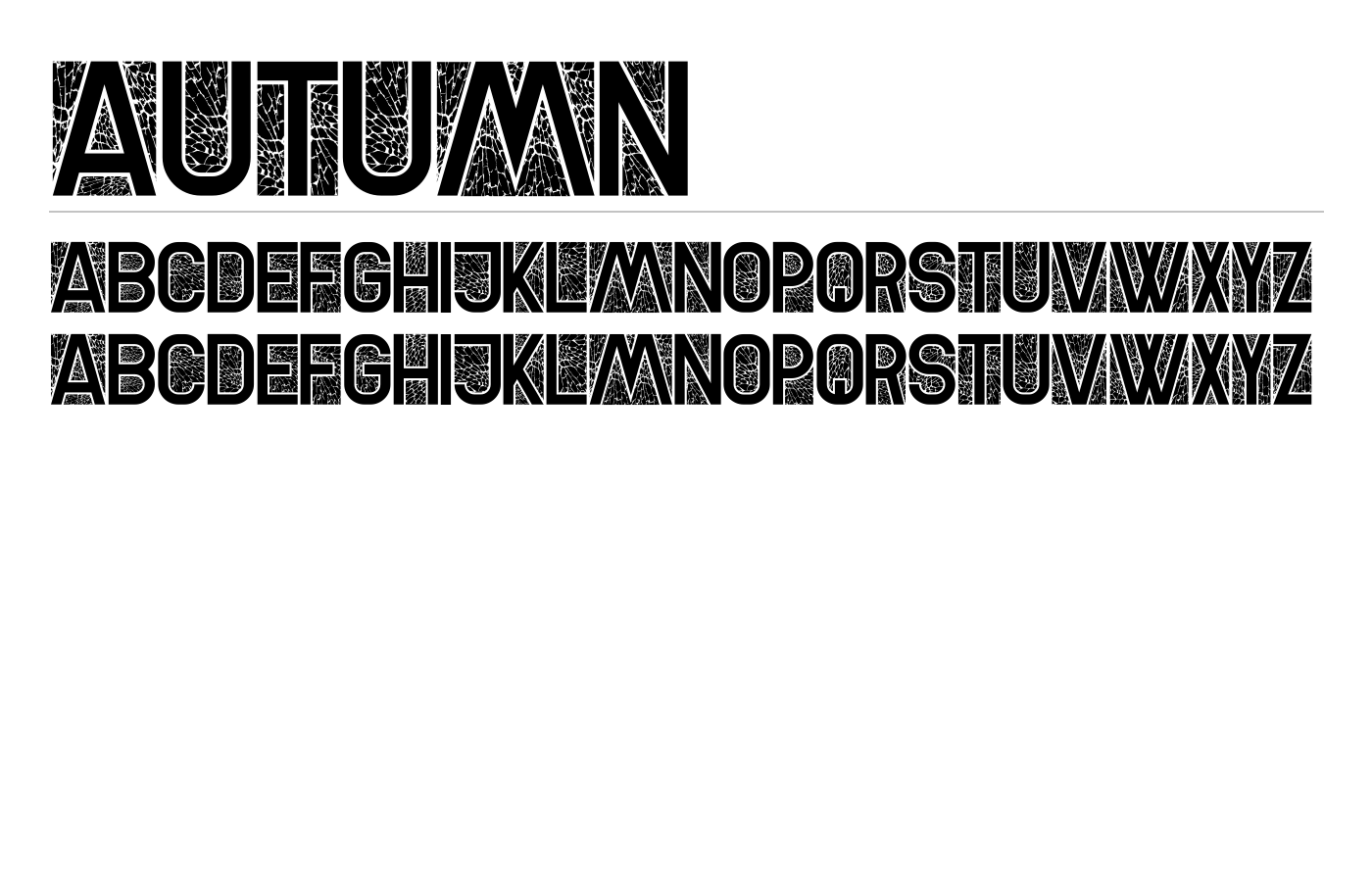
Autumn Font is a bold, all-caps sans serif typeface with strong, geometric shapes and a distinctive cracked texture that adds a rugged, organic feel. Its solid and wide letterforms make it perfect for eye-catching headlines, posters, and branding that want to convey strength with a touch of natural or vintage character. This font works well for creative projects seeking a bold statement with an autumnal, weathered aesthetic.
Autumn Font
About Autumn Font
| Font family | Autumn Font |